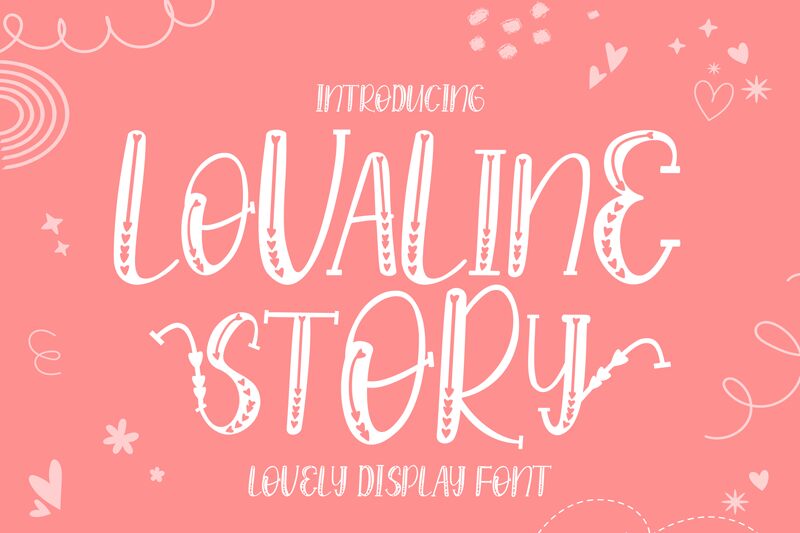
Lovaline Story
Lovaline Story is a narrow, light holiday font designed by Rvandtype. Perfect for Valentine's Day projects, Lovaline Story will add a touch of romanticism to your design. It's also great for creating cards, invitations and other love-inspired artwork.